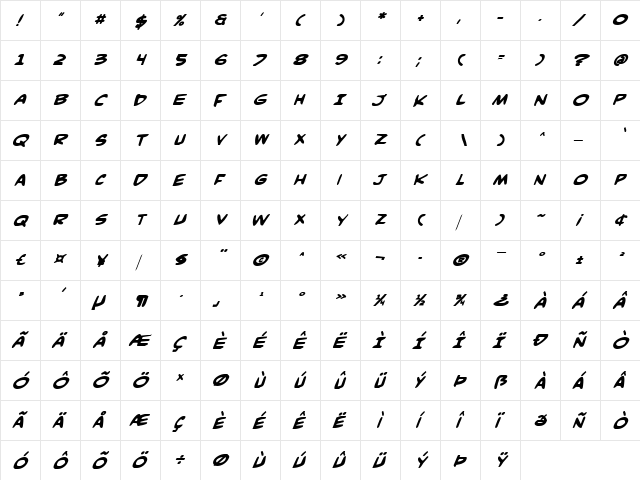
Comic Book Commando Bold Italic Font Preview
Design Context for Comic Book Commando Bold Italic Typeface
Comic Book Commando Bold Italic trades formality for fun, with bouncy, characterful letterforms that bring warmth and energy to any project. The dynamic lean of this cut emphasises speed and emphasis in any layout.
Font Pairing: Pairs well with a rounded or humanist sans for body copy, maintaining the friendly tone without relying on Comic Book Commando Bold Italic to carry extended reading.
Pro Tip: Use Comic Book Commando Bold Italic at larger display sizes where its expressive character can land. Pair with a clean, simple sans for body copy to maintain readability.